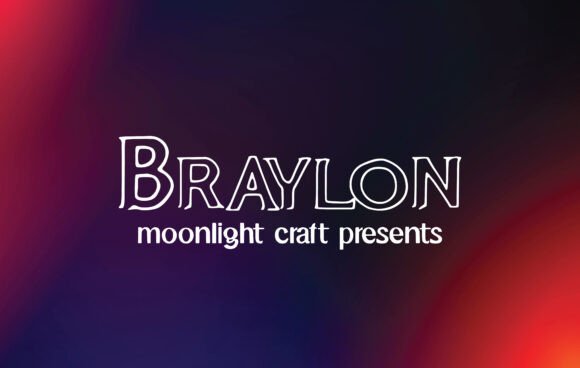
Braylon: The Handwritten Font That Elevates Creative Expression
In a digital world dominated by clean, sans-serif fonts and minimalist design aesthetics, the human touch in typography is more valuable than ever. One font that stands out for its warmth, elegance, and versatility is Braylon. A lovely and beautiful handwritten font, Braylon brings an organic charm to any project it graces. Whether you're designing logos, crafting branding materials, or composing motivational quotes, this typeface offers a unique blend of artistry and functionality.
The Charm of Handwritten Fonts in Modern Design
Handwritten fonts have become increasingly popular in recent years as businesses and creatives seek to connect with audiences on a more personal level. These fonts evoke emotion, authenticity, and individuality — qualities that resonate deeply in today’s market where consumers crave meaningful interactions. Braylon, with its flowing strokes and natural imperfections, fits perfectly into this trend. It's not just a font; it's a visual storyteller.
Unlike rigid, machine-made fonts, handwritten styles like Braylon add character to your message. They can convey a sense of intimacy or professionalism depending on how they’re used, making them ideal for a wide range of applications. This adaptability has led many designers to incorporate such fonts into their workflow, especially when aiming for a brand voice that feels genuine and approachable.
Why Braylon Stands Out
Braylon isn’t just another pretty script — it's been crafted with intention and care. Its letters are designed to mimic the rhythm and fluidity of real handwriting while maintaining legibility and consistency. This balance makes it suitable for both short phrases and longer texts, which is rare among handwritten fonts.
- Legibility: Despite its artistic nature, Braylon remains easy to read, even at smaller sizes.
- Versatility: Works well across print and digital media, from social posts to packaging labels.
- Emotional Impact: Adds a personal, human feel that enhances engagement and memorability.
Braylon in Branding and Logo Design
Logo design is one of the most impactful areas where Braylon shines. In branding, the right font can make all the difference between a forgettable mark and one that people remember. Braylon’s elegant curves and subtle variations lend themselves beautifully to luxury brands, lifestyle companies, and creative studios looking to stand out.
Consider a boutique wellness center promoting holistic living. Using Braylon in their logo could instantly communicate a sense of care and mindfulness. Similarly, a stationery brand targeting millennials might use Braylon to highlight the handcrafted nature of their products. In both cases, the font helps build a stronger emotional connection with the audience.
Moreover, as consumers grow more skeptical of overly polished designs, they tend to gravitate toward brands that appear authentic. Braylon allows designers to tap into that desire for sincerity without sacrificing style or professionalism.
Real-World Examples of Braylon Usage
Several industries have already embraced handwritten fonts like Braylon for their branding needs. Here are some realistic scenarios where it could be applied:
- Creative Agencies: Use Braylon in taglines or promotional banners to showcase creativity and craftsmanship.
- Wedding Invitations: Add a touch of romance and elegance with Braylon for names or special messages.
- Coaching and Consulting: Employ Braylon in marketing collateral to suggest a personal, one-on-one experience.
- Food and Beverage Brands: Feature Braylon on packaging or signage to evoke a sense of home and tradition.
These examples demonstrate how versatile and effective Braylon can be. It’s not limited to any one niche but instead adapts to the tone and intent of the project, making it a powerful tool in a designer’s arsenal.
How Braylon Fits Into Changing User Expectations
Modern audiences expect content that speaks directly to them. They want visuals that feel less corporate and more conversational. This shift has made handwritten fonts like Braylon highly relevant. They help create a sense of familiarity and trust, which is crucial in today’s competitive market.
Users also engage more with content that feels human. On platforms like Instagram, Pinterest, and TikTok, where visual appeal is key, Braylon can elevate the aesthetic of a post or graphic. Marketers who understand this trend often use such fonts to craft compelling captions, product names, or call-to-action statements that feel less intrusive and more inviting.
Beyond Aesthetics: Practical Implications for Users
For professionals and creators, choosing the right font isn't just about looks — it’s about usability and accessibility too. Braylon excels here by offering a clean yet expressive style that works well across different mediums. It can be paired with modern sans-serif fonts for contrast or used alone for a bold statement.
So next time you’re looking to elevate your creative output, consider reaching for Braylon. Let its graceful curves and expressive style help you tell a story that resonates — and watch your ideas come to life in a whole new way.